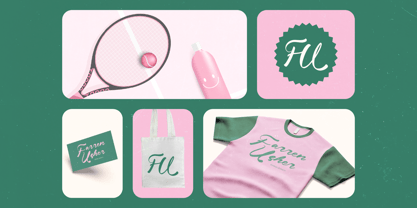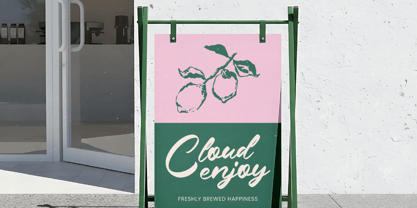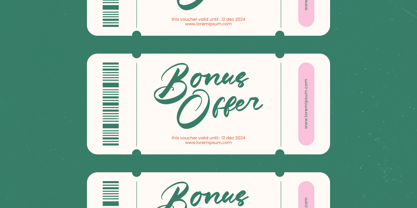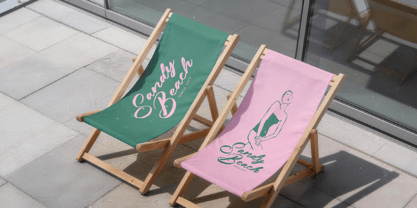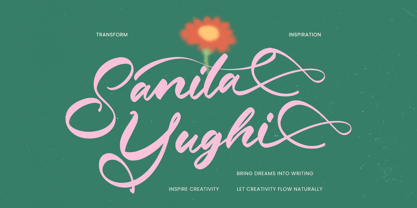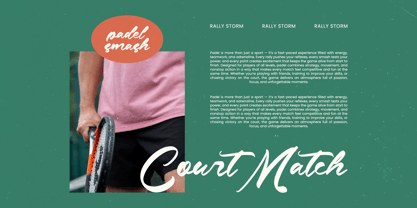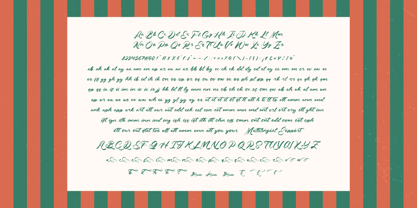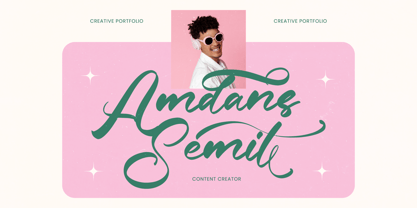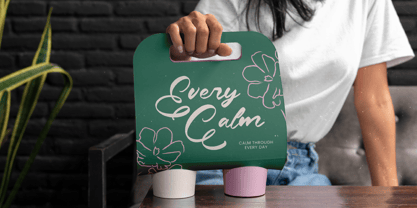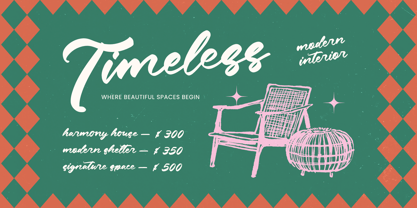
Sanita Yughi
The Sanita Yughi Font Family was designed by Heru Utama Putra and published by Letterena Studios. Sanita Yughi contains 2 styles and family package options. More about this family
Sanita Yughi - Bold Calligraphy
Elevate your creative vision with a typeface that embodies sophisticated movement and organic energy. Sanita Yughi - Bold Calligraphy is a masterclass in expressive script design, blending high-impact weight with the delicate flow of artisan craftsmanship. Its fluid, sweeping strokes create a rhythmic harmony that commands attention while maintaining a refined, high-end aesthetic perfect for modern visual storytelling.
Precision meets artistic flair in every stroke of this masterfully crafted collection, offering unparalleled depth for designers. Boasting an impressive 564 glyphs, Sanita Yughi - Bold Calligraphy provides a wealth of dynamic ligatures and stylistic alternates that ensure a truly custom, hand-lettered feel. This technical richness allows for seamless transitions and unique character combinations that breathe life into any static layout or digital composition.